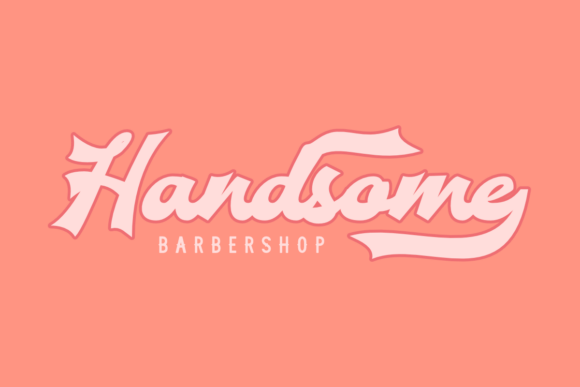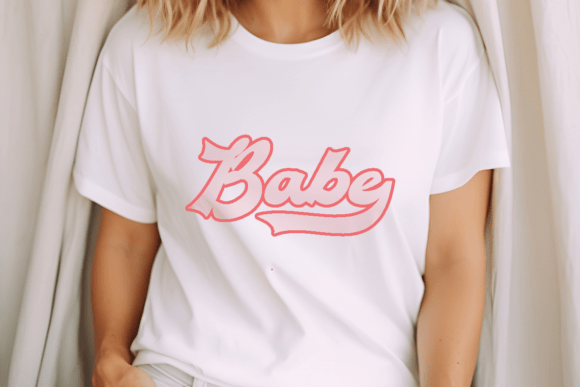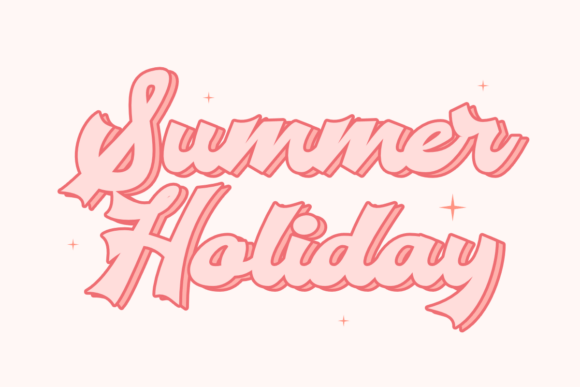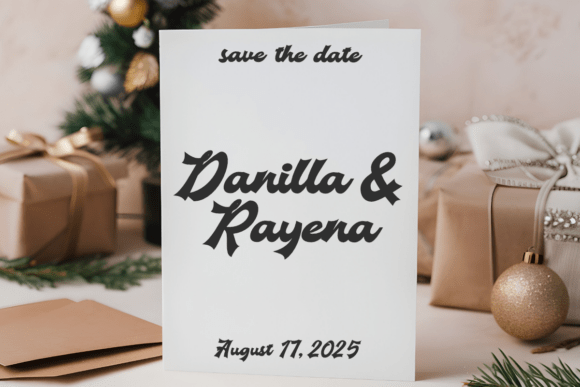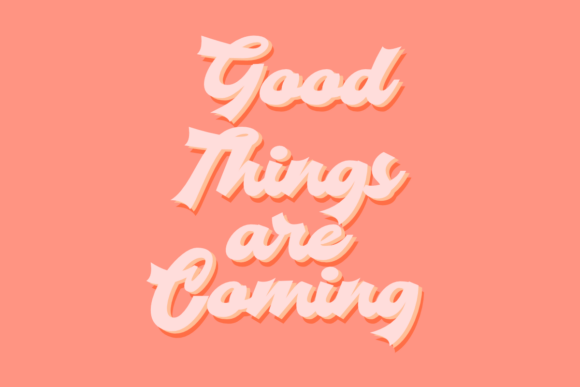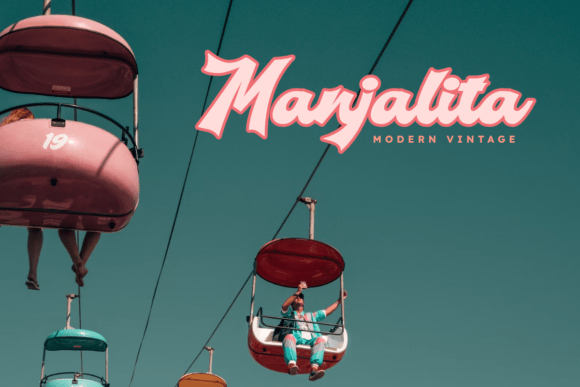
Introduction to Reinkar Font
Introducing Reinkar – an imaginative fusion of groovy and retro that manifests as a unique handwritten script font.
Steeped in nostalgia, Reinkar is the ideal choice for retro design projects, giving your work that timeless appeal It seamlessly integrates with branding ventures, infusing your brand’s identity with a natural handwritten touch.
Key Features of Reinkar Font
Why Choose Reinkar Font?